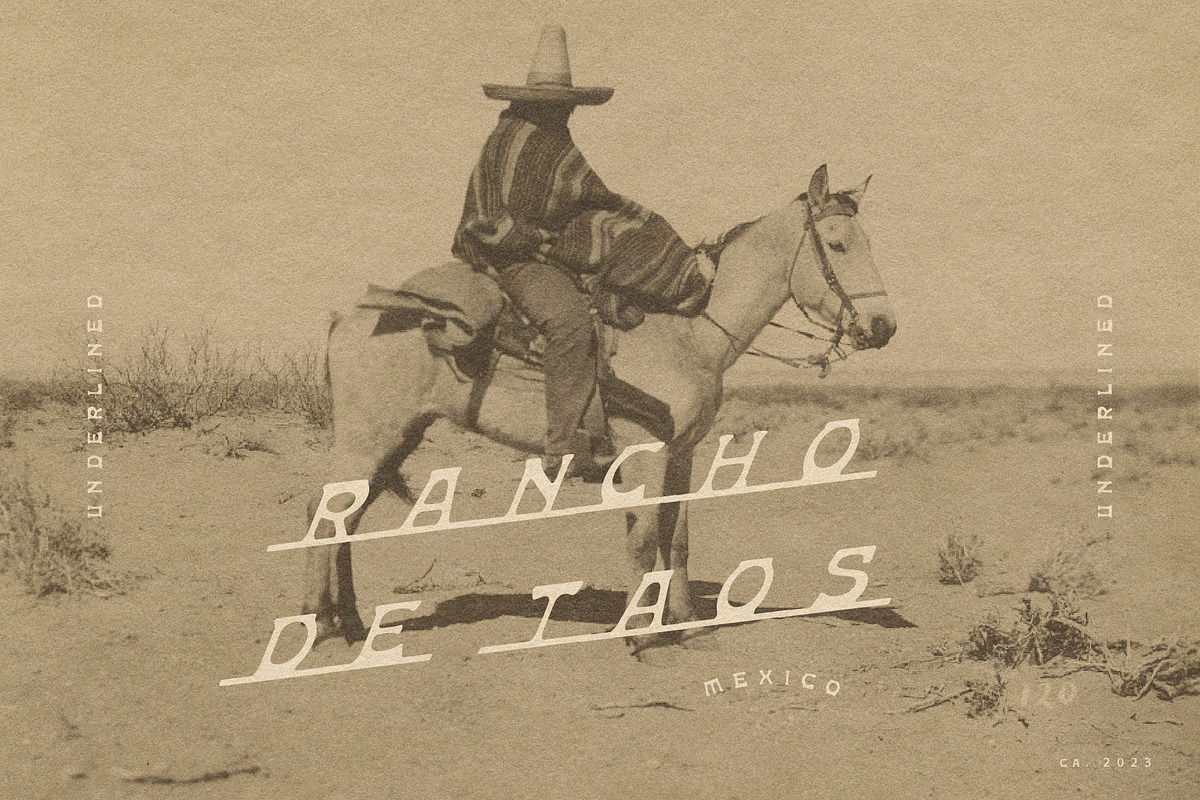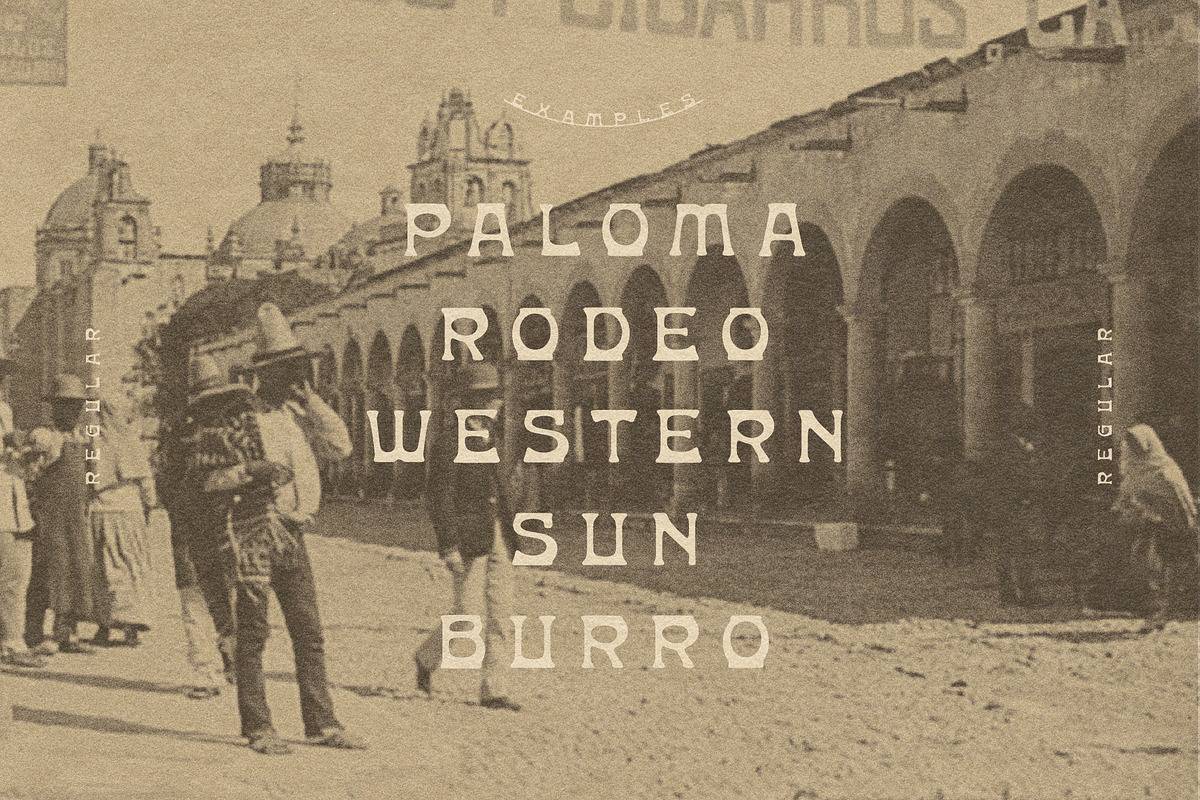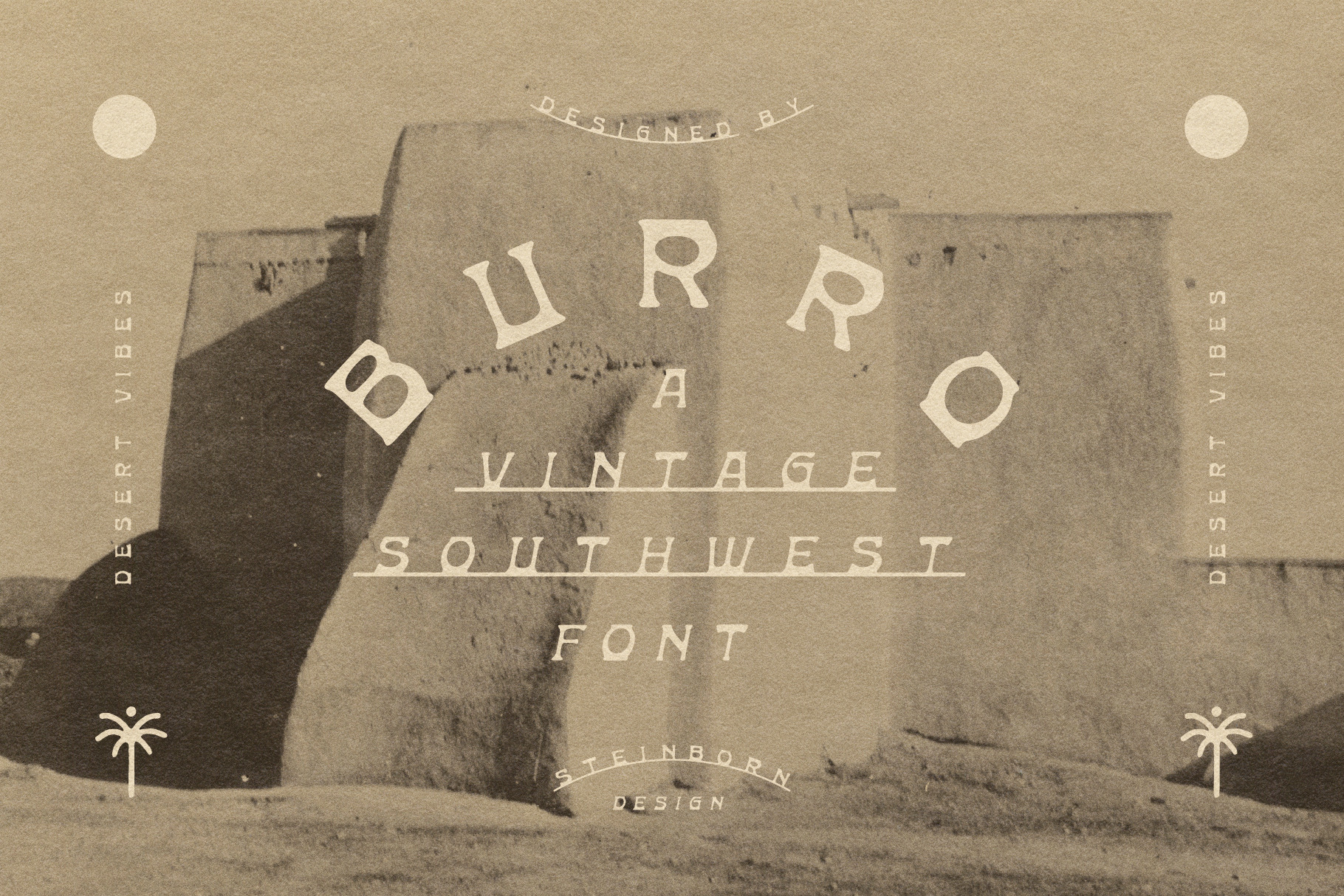
Burro Southwest Font
Inspired by old iron signs of the Southwest, this font comes with three hand drawn styles (Regular, Slanted, and Underlined)! Perfect for large headers or signs, but also works well with smaller descriptive type (examples in the product preview screenshots). Thanks for supporting my store and please let me know if you have any questions :)